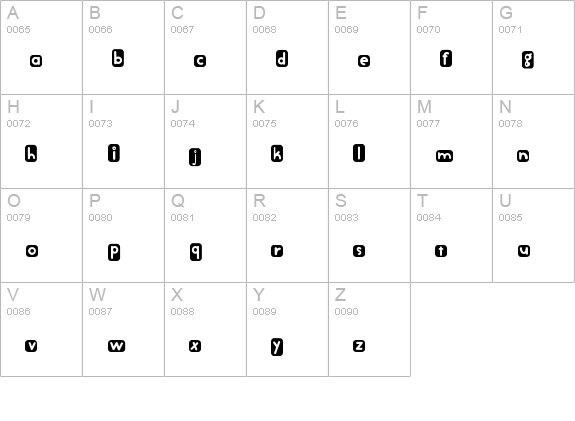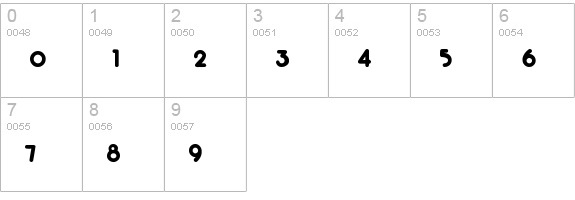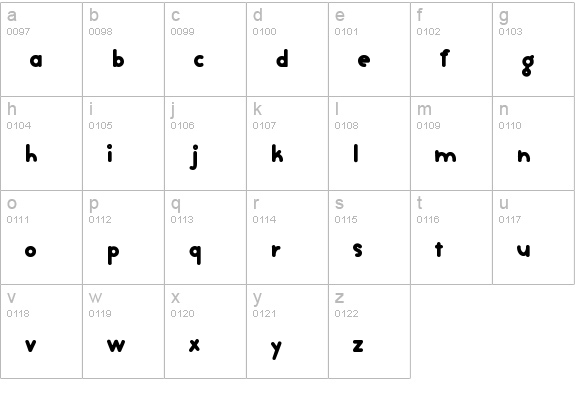
Chewy Stewy Font Details
Introducing Chewy Stewy font, a whimsical and playful typeface that adds a delightful touch to any design project. With its hand-drawn style and quirky charm, Chewy Stewy brings a sense of fun and creativity to your text. This font is perfect for a variety of uses, from children's books to branding and packaging. The best part? Chewy Stewy font is completely free to download at FontsMarket.com! Whether you're a designer looking to add a unique flair to your work or a hobbyist seeking a charming font for personal projects, Chewy Stewy is sure to impress. Don't miss out on this fantastic opportunity to enhance your designs with this delightful and free font. Download Chewy Stewy today and let your creativity shine!